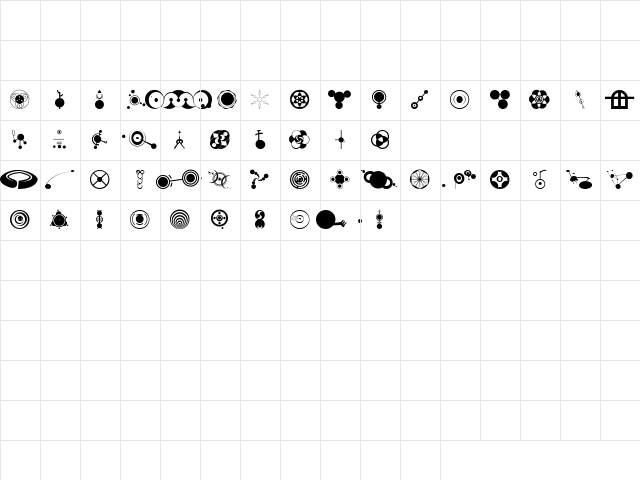
CropBats AOE Regular Free Font
CropBats AOE Regular
CropBats AOE Family
Design Context for CropBats AOE
CropBats AOE is a composed and adaptable typeface that performs quietly and consistently across a wide range of design contexts.